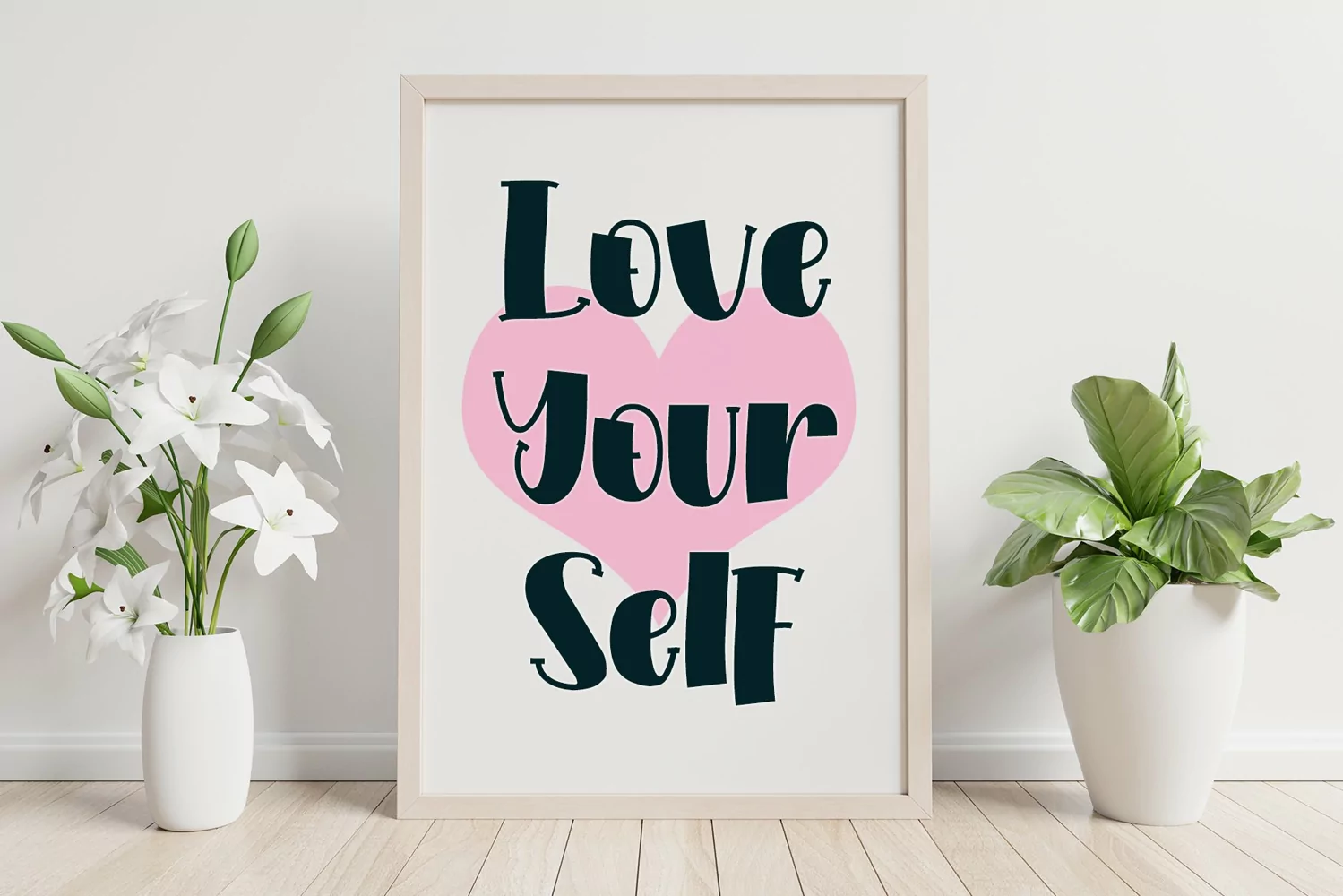
Beautiful Handwritten
Violethe is a bold script font that is simple and unique looking. This customizable font will look great on a variety of design ideas such as Christmas themes, valentine's, posters, invitations, weddings, branding projects, social media posts, magazines, book covers, and more! This will add a fun and friendly touch to any of your projects! This font is PUA encoded which means you can access all glyphs and sweeps easily.